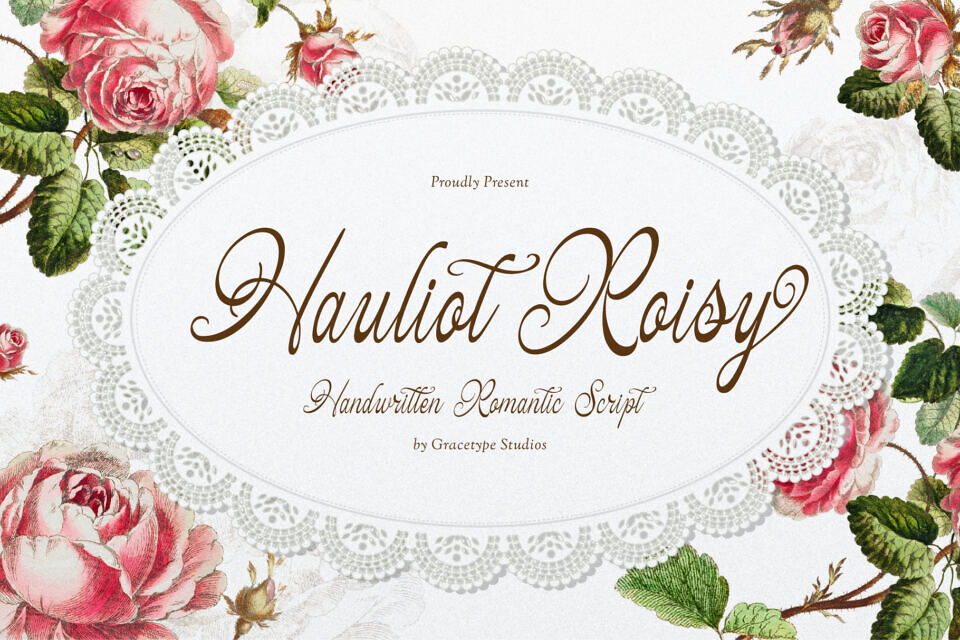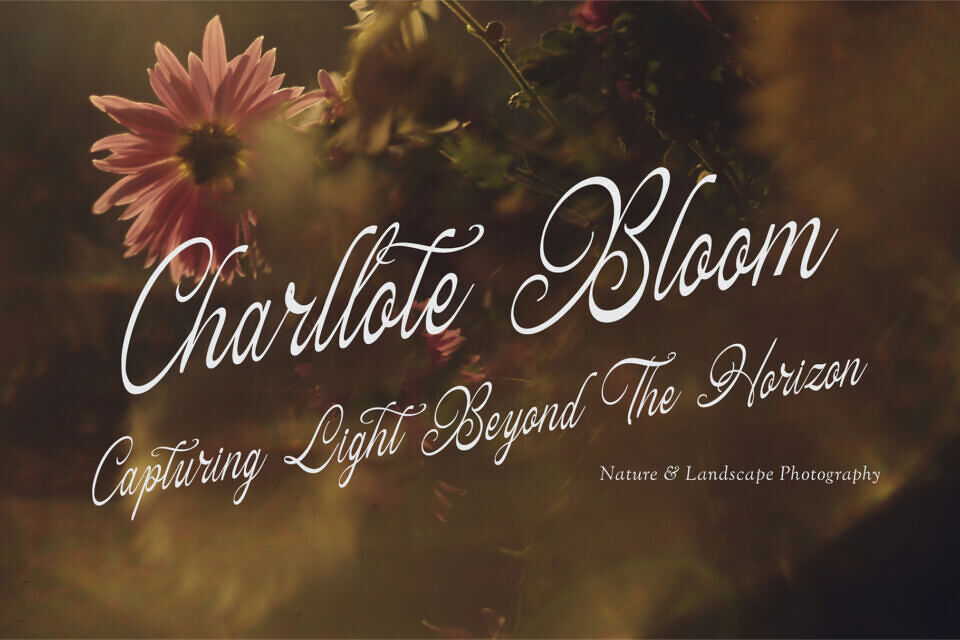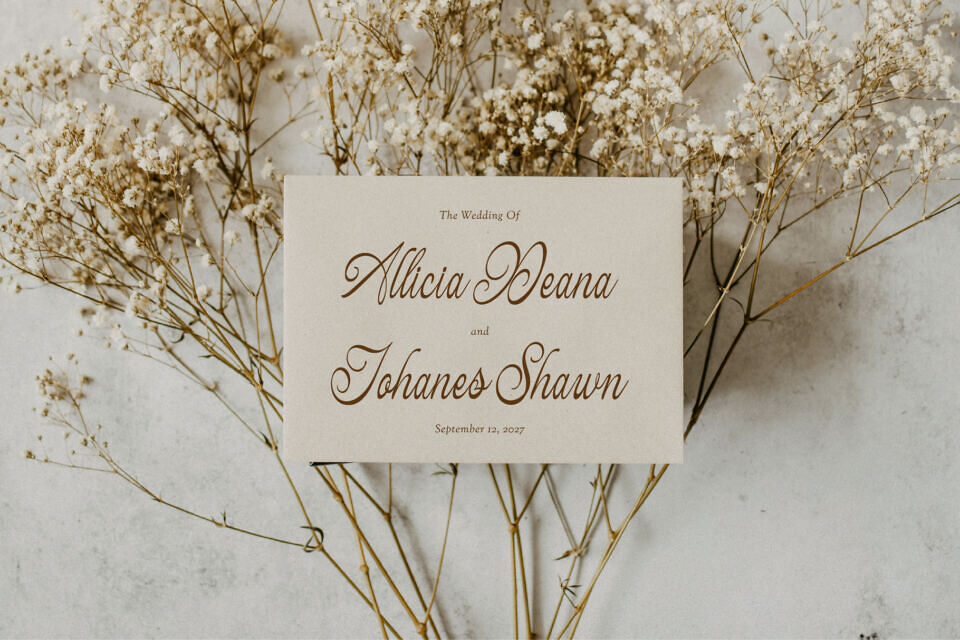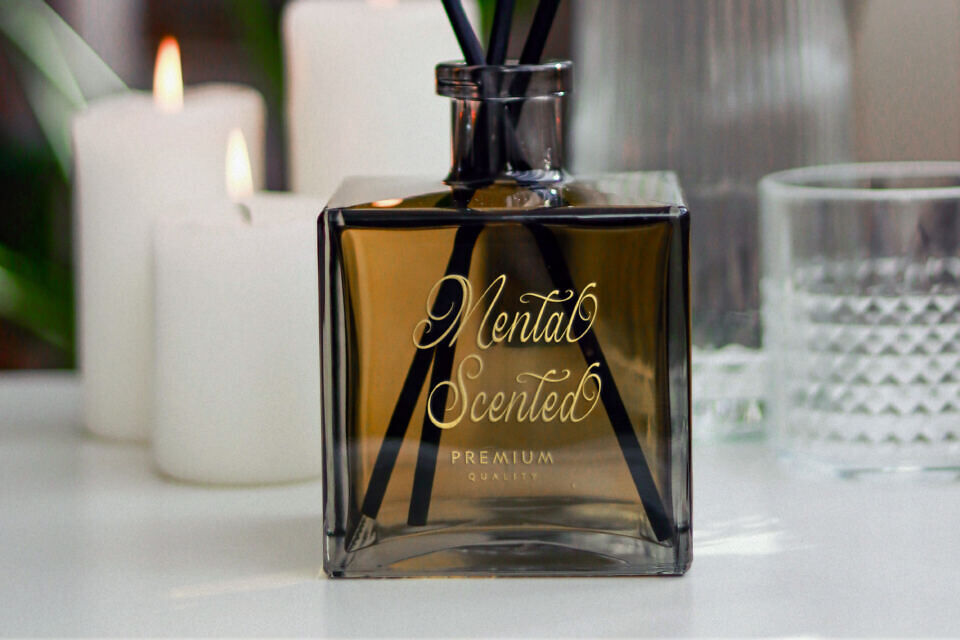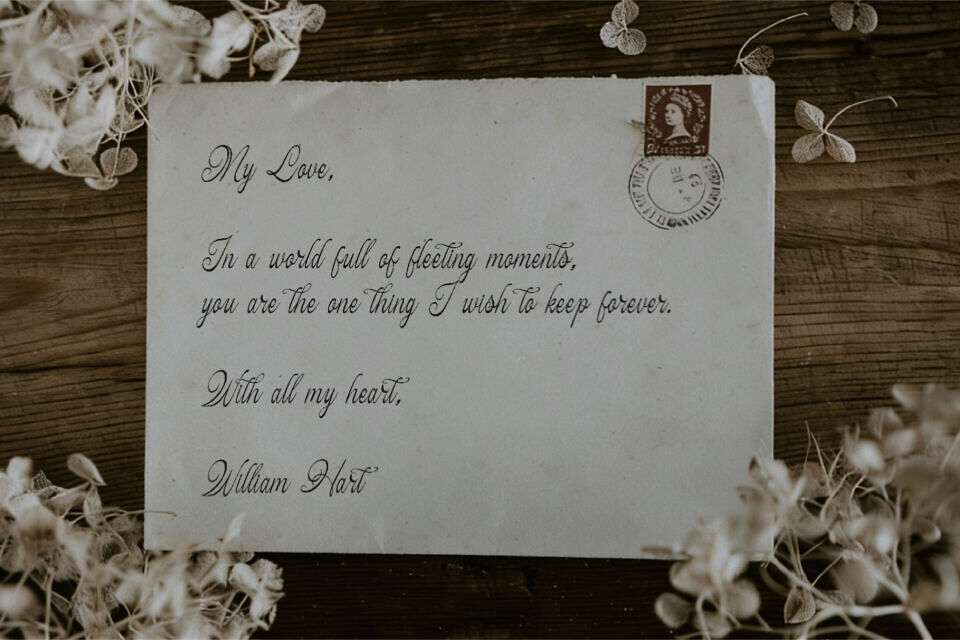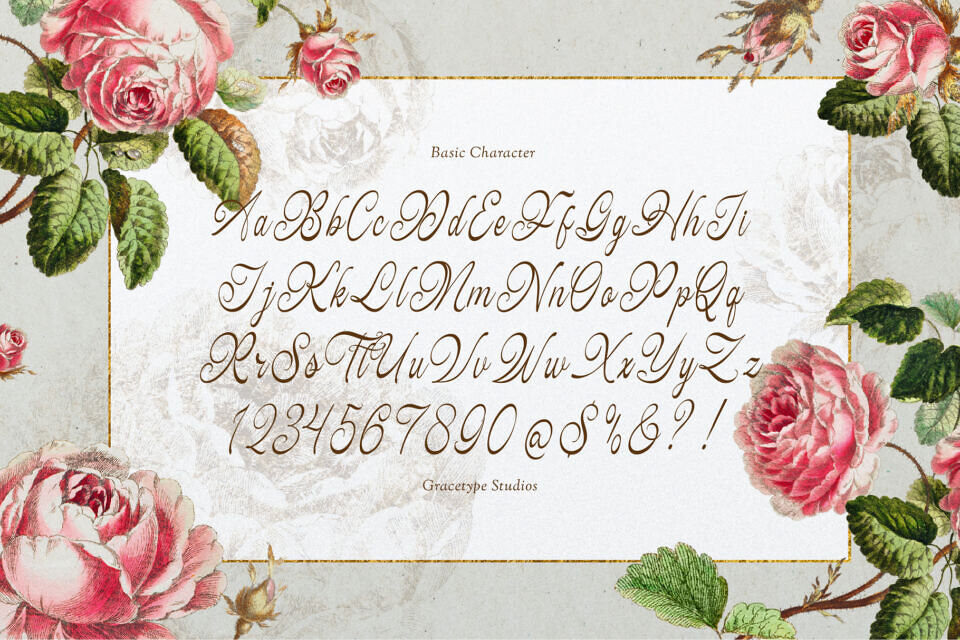
This elegant typeface features graceful cursive strokes uniquely characterized by sweeping, loop-heavy capital initials, delicate tendril flourishes on the crossbars, and a classic poetic baseline posture that bridges the gap between old-world Victorian lace garden parties and contemporary high-end lifestyle branding.
With its medium visual weight, smooth calligraphy contours, and timeless elegance, Hauliot Roisy is the premier choice for independent organic cosmetic labels, premium boutique floral studio branding, bespoke wedding invitations, artisan confection packaging, and high-impact social media headings.